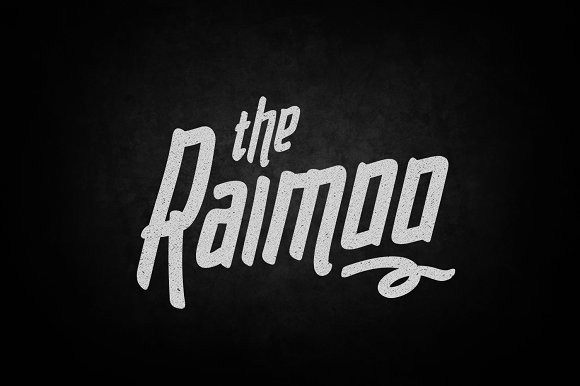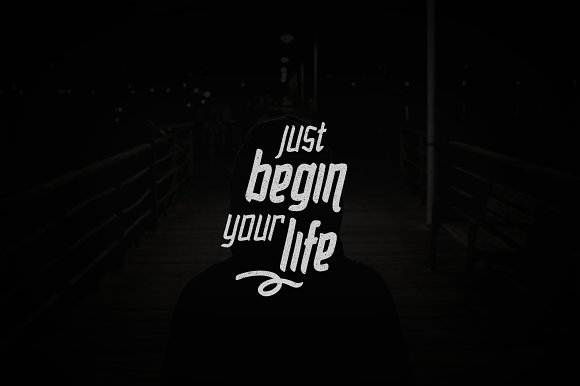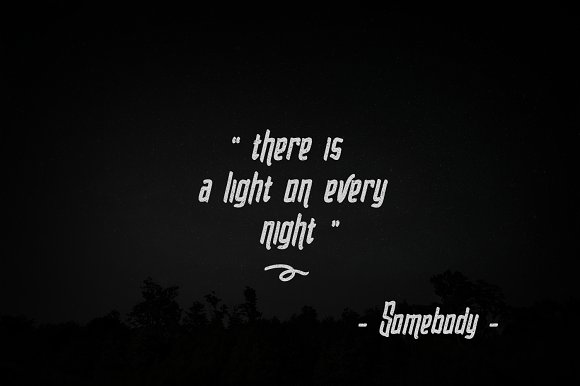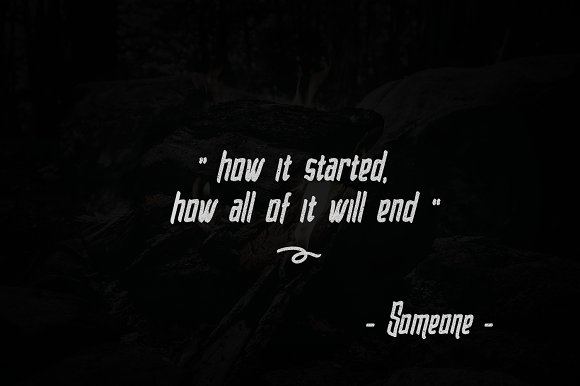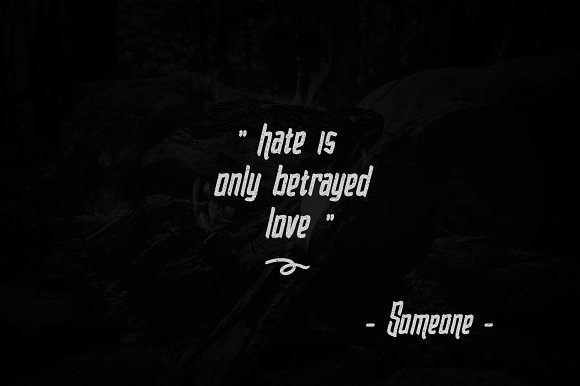
Raimoo Typeface
Raimoo is a handwritten sans serif typeface.
The Raimoo typeface includes a full set of uppercase and lowercase letters as well as multi-lingual and currency support, numerals, punctuations, alternates.